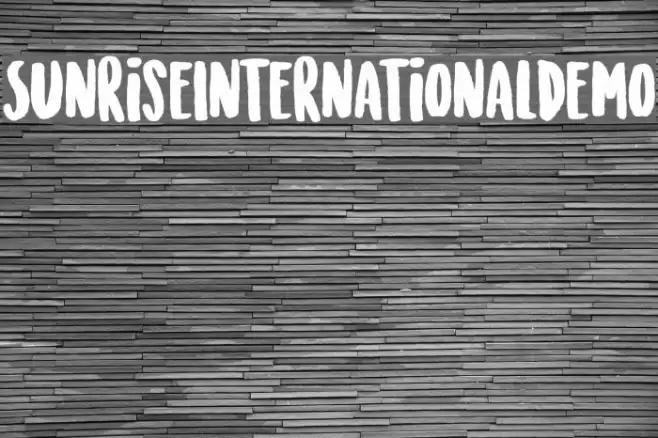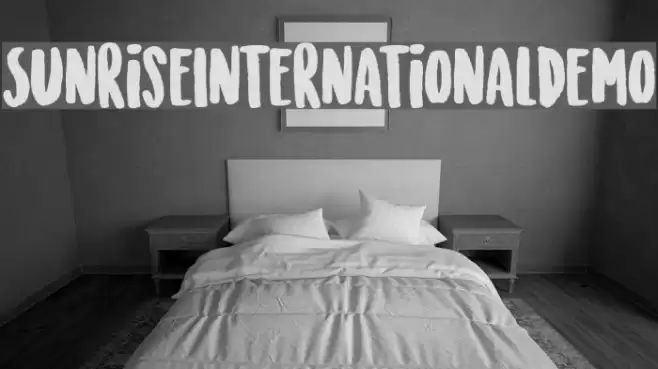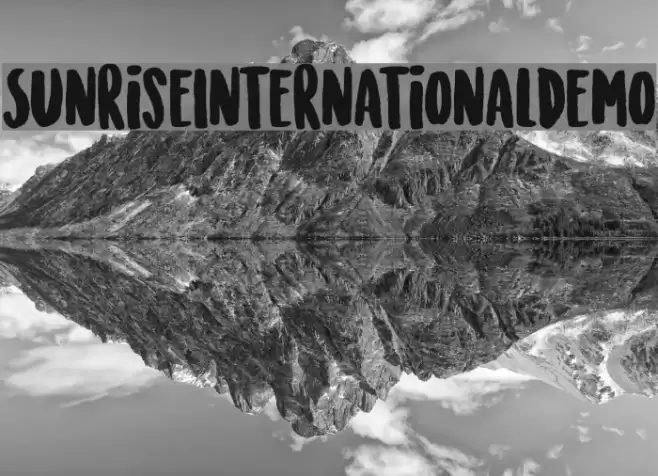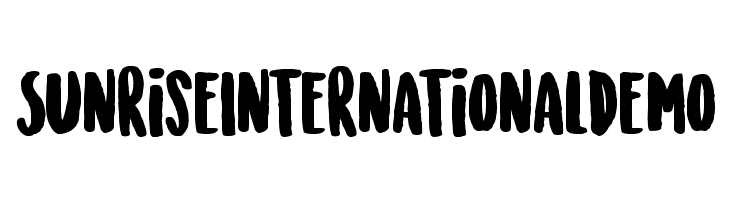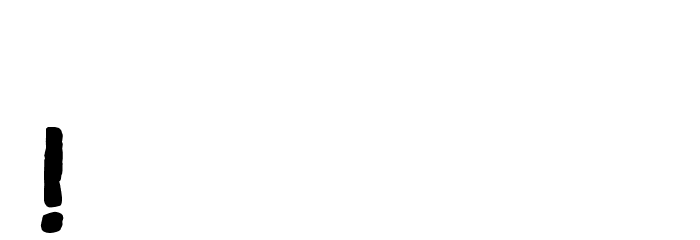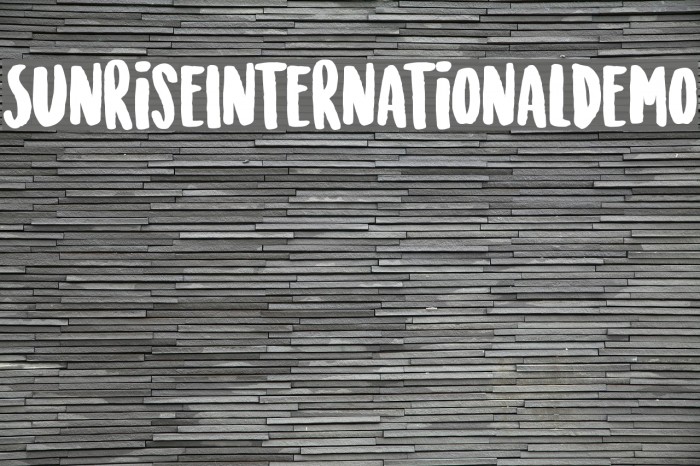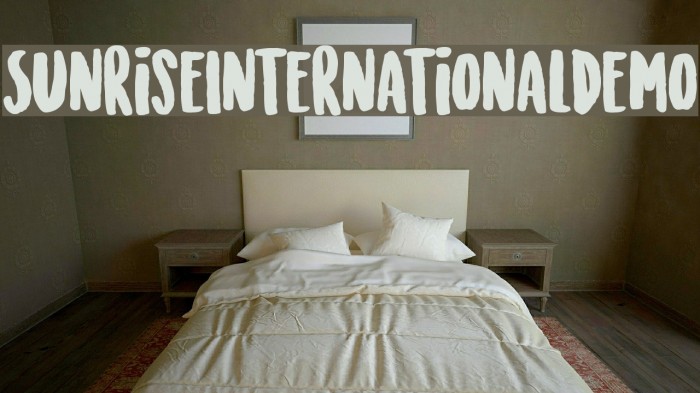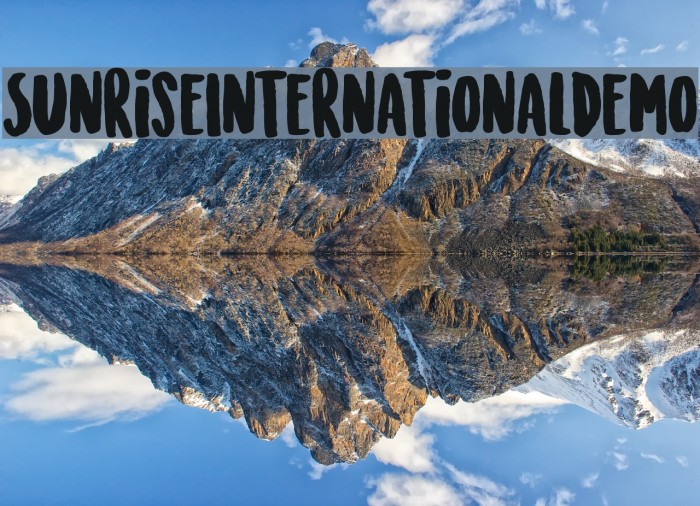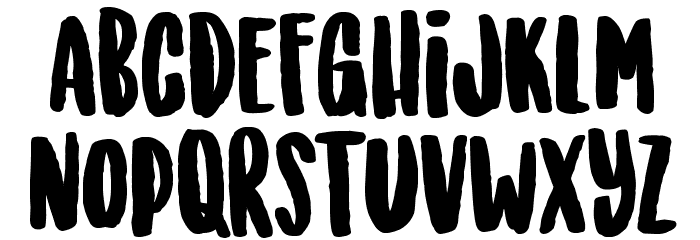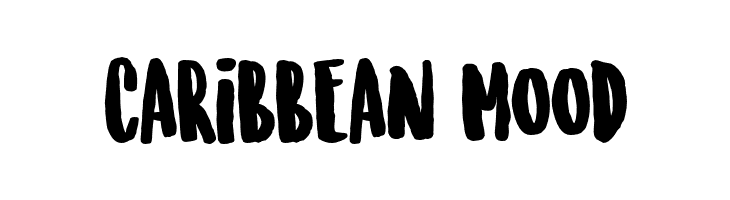
SunriseInternationalDemo Font
SunriseInternationalDemo Description
This font features a bold and expressive style with thick, uneven strokes that give it a hand-painted appearance. The letters are slightly irregular, adding a playful and dynamic feel. The uppercase characters are robust and impactful, making them suitable for attention-grabbing headlines. The font lacks lowercase letters and numerals, focusing instead on a strong uppercase presence. The exclamation mark is bold and matches the overall style, emphasizing its decorative nature. This font is ideal for projects that require a bold statement or artistic flair.
A bold, hand-painted style font with thick, uneven strokes and a playful, dynamic feel from Handwritten fonts.
- Proposed Projects: Ideal for posters, branding, packaging, and any design that requires a bold, artistic touch.